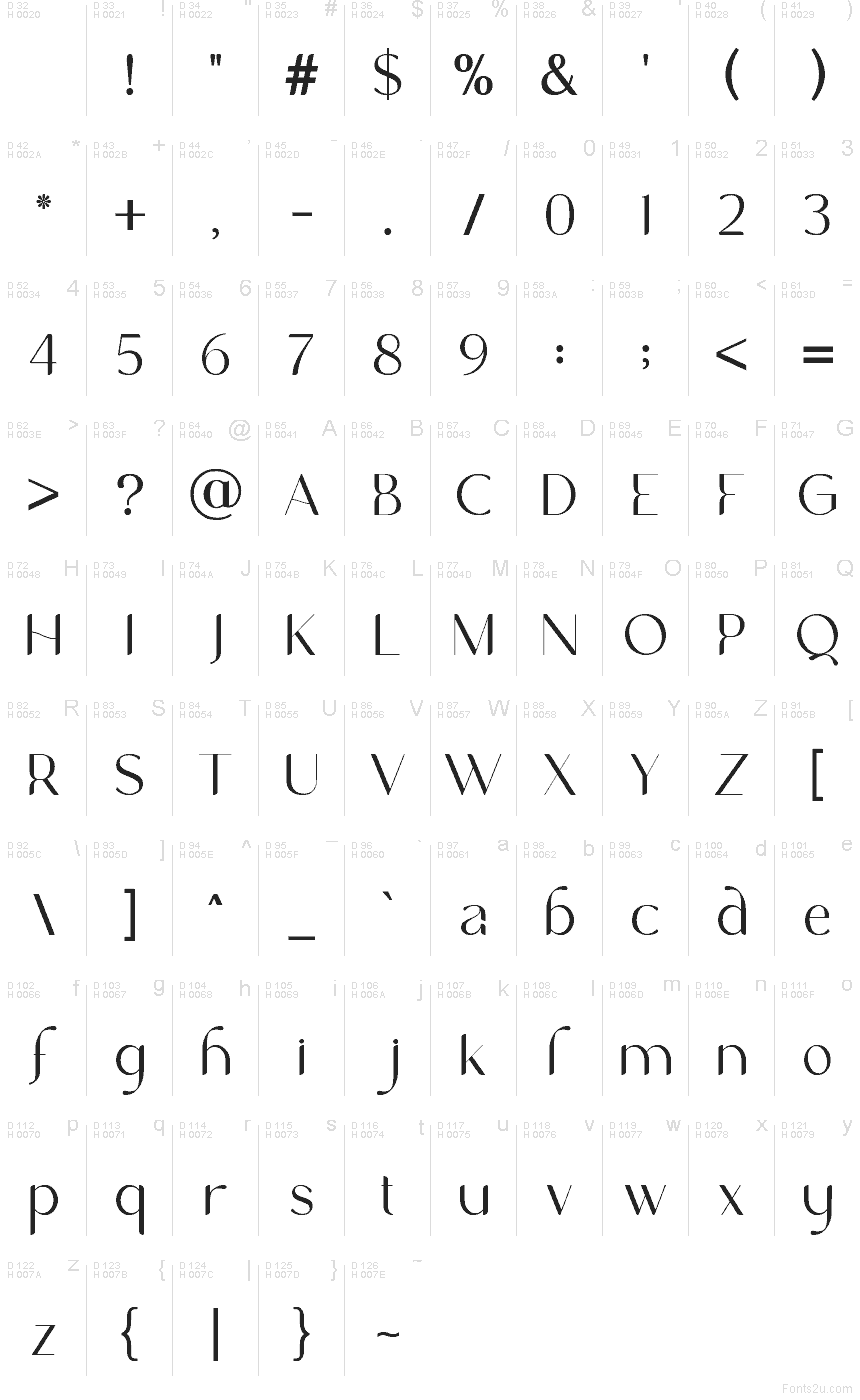
NCL Gasdrifo
NCL Gasdrifo font by Enxyclo Studio is a free modern serif typeface that feels like it was cut from glossy magazine pages. Razor-thin hairlines flow into inky, sculpted curves, giving each word a lithe, editorial elegance. The spacing is airy but deliberate, so even with its dramatic forms, the text still reads with a smooth, liquid rhythm rather than feeling fussy or overworked.
Using NCL Gasdrifo, headlines instantly take on a fashion-forward, artful tone that suits lookbooks, perfume branding, posters, book covers, and boutique logos. This free font shines when set large, where its sweeping contrasts and delicate joins can really breathe; pair it with a clean geometric sans for body copy to ground the drama.